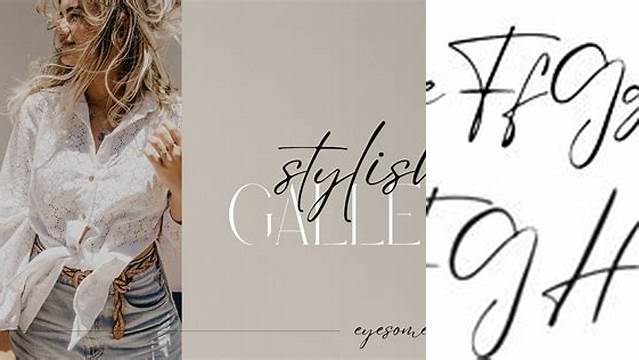
Hey guys! Are you on the hunt for the perfect font to add a touch of elegance and personality to your designs? Look no further! In this article, we're diving deep into the world of Eyesome Script Normal Font, exploring everything from what makes it so special to where you can snag it for free. Get ready to elevate your projects with this stunning typeface!
1. What is Eyesome Script Normal Font?
Eyesome Script Normal Font is a beautifully crafted typeface that falls under the script font category. Known for its flowing lines, elegant curves, and a touch of handwritten charm, it's a versatile font suitable for various design applications. Unlike some overly stylized script fonts, Eyesome Script Normal Font strikes a perfect balance between readability and aesthetic appeal. This means it's not only visually pleasing but also practical for use in both headings and shorter body text. Its gentle, approachable style makes it a fantastic choice for projects aiming to convey warmth, sophistication, or a personal touch. Think wedding invitations, branding for artisanal products, or even adding a unique flair to your website. The beauty of Eyesome Script lies in its ability to enhance the overall mood of your design, making it feel more inviting and bespoke. Whether you're a seasoned designer or just starting out, this font is a valuable addition to your toolkit. The clean, normal weight ensures it's easy to work with, avoiding the pitfalls of overly thick or thin strokes that can sometimes compromise legibility. In essence, Eyesome Script Normal Font is a harmonious blend of artistry and functionality, making it a go-to option for designers who appreciate both beauty and practicality.
2. Key Features of Eyesome Script
When we talk about Eyesome Script, several key features make it stand out from the crowd. First off, its elegant curves and fluid strokes immediately catch the eye. The font exudes a sense of grace and sophistication, making it perfect for projects that need a touch of class. Another defining feature is its readability. Unlike some script fonts that sacrifice clarity for style, Eyesome Script maintains a high level of legibility, ensuring your message gets across without any strain. The consistent weight and spacing contribute to this, allowing the eyes to easily follow the text. Furthermore, Eyesome Script is incredibly versatile. It works well in a variety of contexts, from formal invitations to casual branding materials. Its balanced design makes it adaptable to different sizes and applications, whether you're using it for a large headline or smaller body text. It also includes a comprehensive set of characters, often including uppercase and lowercase letters, numerals, punctuation, and even some special glyphs or ligatures to add extra flair. This makes it a complete package for designers looking for a reliable and stylish script font. The absence of excessive ornamentation keeps it clean and modern, fitting seamlessly into contemporary designs. In short, Eyesome Script’s blend of elegance, readability, and versatility makes it a top choice for designers seeking a font that is both beautiful and functional.
5. Using Eyesome Script in Graphic Design Projects
Using Eyesome Script in graphic design projects can really elevate your work, adding a touch of sophistication and personality. This font shines in various applications, from branding to invitations. For branding, consider using Eyesome Script for logos, business cards, and website headers. Its elegant curves can convey a sense of luxury and refinement, making your brand stand out. In invitations, Eyesome Script adds a personal and sophisticated touch, perfect for weddings, anniversaries, or special events. Use it for the main headings or accent text to create a memorable impression. When working with Eyesome Script, it's important to consider its readability. While it's beautiful, it's best used sparingly for larger text sizes to ensure clarity. Pair it with a simple, clean sans-serif font for body text to create a balanced and harmonious design. Experiment with different colors and backgrounds to see how Eyesome Script interacts with various elements. A light font color on a dark background can create a striking contrast, while a subtle shade can add a touch of understated elegance. Don't be afraid to play with kerning and letter spacing to fine-tune the appearance of the font. By carefully considering these factors, you can harness the full potential of Eyesome Script and create stunning graphic designs that leave a lasting impression.
6. Pairing Eyesome Script with Other Fonts
One of the keys to using Eyesome Script effectively is knowing how to pair it with other fonts. Because Eyesome Script is a decorative script font, it's best to combine it with simpler, more neutral typefaces to create a balanced and harmonious design. A classic pairing is Eyesome Script with a sans-serif font like Helvetica, Arial, or Open Sans. The clean lines of the sans-serif font provide a nice contrast to the flowing curves of Eyesome Script, preventing the design from becoming too overwhelming. Another great option is to pair Eyesome Script with a simple serif font like Times New Roman or Georgia. The serifs add a touch of formality, while still maintaining readability. When choosing a pairing font, consider the overall tone and purpose of your design. If you're aiming for a modern and minimalist look, opt for a clean sans-serif font. If you want a more traditional and elegant feel, a serif font might be the better choice. Experiment with different font weights and sizes to find the perfect balance. Use Eyesome Script for headings or accent text, and the pairing font for body text. This will create a clear visual hierarchy and ensure that your message is easy to read. Don't be afraid to try out different combinations until you find a pairing that works well together and reflects the overall aesthetic you're trying to achieve. Remember, the goal is to create a design that is both visually appealing and easy to read, so choose your fonts wisely.
7. Eyesome Script for Logo Design
Using Eyesome Script for logo design can give your brand a distinctive and memorable identity. Its elegant and flowing style can convey a sense of sophistication, creativity, or personal touch, depending on how it's used. When incorporating Eyesome Script into a logo, it's important to consider the overall brand message and target audience. If your brand is aiming for a luxurious or high-end feel, Eyesome Script can be a perfect choice. Its graceful curves and refined appearance can evoke a sense of quality and exclusivity. For brands that want to project a more approachable and friendly image, Eyesome Script can add a touch of warmth and personality. Its handwritten style can make the brand feel more authentic and relatable. Keep in mind that readability is crucial in logo design. While Eyesome Script is beautiful, it's best used sparingly and in larger sizes to ensure that the brand name is easily recognizable. Pair it with a simple and clean sans-serif font for any supporting text, such as a tagline or slogan. Experiment with different colors and layouts to see how Eyesome Script interacts with other design elements. A bold color can make the logo stand out, while a more subtle palette can create a sense of elegance. Consider the overall balance and composition of the logo to ensure that Eyesome Script complements the other elements without overpowering them. By carefully considering these factors, you can create a logo that is both visually appealing and effectively communicates your brand's identity.
8. Creating Wedding Invitations with Eyesome Script
Creating wedding invitations with Eyesome Script can add a touch of romance and elegance to your special day. This font is perfect for conveying a sense of sophistication and celebration, making your invitations truly memorable. When using Eyesome Script for wedding invitations, consider incorporating it into the main headings, such as the names of the bride and groom, the date, or the venue. Its graceful curves and flowing lines can create a beautiful focal point, drawing the eye and setting the tone for the event. Pair Eyesome Script with a simple and elegant serif font for the body text, such as the details of the ceremony and reception. This will ensure that the invitation is easy to read while still maintaining a sense of formality. Choose a color palette that complements the overall theme of the wedding. Soft, pastel colors like blush, ivory, and gold can create a romantic and delicate feel, while bolder colors like navy, burgundy, or emerald green can add a touch of sophistication. Consider adding decorative elements, such as floral motifs, ribbons, or wax seals, to enhance the overall design. These details can add a personal touch and make the invitations even more special. Experiment with different layouts and compositions to find the perfect balance between elegance and readability. Ensure that all the necessary information is clearly displayed and easy to find. By carefully considering these elements, you can create wedding invitations that are both beautiful and functional, setting the stage for a memorable celebration.
9. Eyesome Script and Web Design
Incorporating Eyesome Script into web design can add a touch of elegance and personality to your website. However, it's important to use it judiciously to ensure a seamless and user-friendly experience. When using Eyesome Script on your website, consider using it for headings, titles, or short phrases that need to stand out. Its graceful curves and flowing lines can create a visually appealing focal point, drawing the visitor's attention and conveying a sense of sophistication. However, avoid using Eyesome Script for large blocks of body text, as its decorative style can make it difficult to read on screen. Pair it with a clean and readable sans-serif font for the main content of your website. Choose a font that is easy on the eyes and optimized for readability on different devices. Ensure that the font sizes and line heights are appropriate for the screen, and that the text is properly aligned and spaced. Consider the overall color scheme and visual hierarchy of your website. Use colors that complement Eyesome Script and create a harmonious and inviting atmosphere. Make sure that the website is responsive and adapts well to different screen sizes and devices. Test the website on various browsers and devices to ensure that the fonts are displayed correctly and that the overall design is consistent. By carefully considering these factors, you can use Eyesome Script effectively in web design to create a visually appealing and user-friendly website that reflects your brand's identity and values.
10. Eyesome Script vs. Other Script Fonts
When comparing Eyesome Script to other script fonts, several key differences and similarities emerge. Eyesome Script is known for its elegant curves, flowing lines, and a touch of handwritten charm. It strikes a balance between readability and aesthetic appeal, making it suitable for various design applications. Other script fonts, such as Brush Script or Lobster, may have a more casual or stylized appearance. Brush Script has a rough, textured look, while Lobster has a bold and retro feel. Some script fonts, like Snell Roundhand or Zapfino, are more formal and ornate. These fonts are often used for invitations, certificates, or other formal documents. Readability is a key factor to consider when choosing a script font. Eyesome Script maintains a high level of legibility, making it suitable for both headings and shorter body text. Some script fonts, especially those with intricate or highly stylized designs, may be more difficult to read, especially in smaller sizes. Versatility is another important consideration. Eyesome Script is a versatile font that can be used in a variety of contexts, from branding to invitations. Other script fonts may be more limited in their applications. Ultimately, the choice between Eyesome Script and other script fonts depends on the specific design project and the desired aesthetic. Consider the overall tone and message of your design, as well as the readability and versatility of the font. By carefully evaluating these factors, you can choose the script font that best suits your needs and creates the desired impact.
11. The History and Evolution of Script Fonts
The history and evolution of script fonts is a fascinating journey through the world of typography and design. Script fonts, which mimic the appearance of handwriting, have a rich and diverse history that spans centuries and cultures. Early script fonts were often based on the calligraphy of scribes and penmen, who used quill pens to create elegant and flowing letterforms. These early script fonts were often used for formal documents, such as diplomas, certificates, and invitations. As printing technology evolved, script fonts became more widely available and accessible. Type designers began to experiment with different styles and techniques, creating a wide range of script fonts with varying degrees of formality and ornamentation. In the 20th century, script fonts experienced a resurgence in popularity, thanks to the rise of advertising and graphic design. Script fonts were used to add a touch of elegance and personality to logos, posters, and other promotional materials. Today, script fonts continue to be a popular choice for designers and typographers. They are used in a wide range of applications, from web design to print media, and are available in a variety of styles and formats. The evolution of script fonts reflects the changing tastes and trends of society, as well as the ongoing innovation and creativity of type designers. From the elegant calligraphy of early scribes to the bold and stylized designs of modern fonts, script fonts have played a vital role in shaping the visual landscape of our world.
12. Common Mistakes to Avoid When Using Script Fonts
When using script fonts, it's important to be aware of common mistakes that can detract from the overall design. One of the most common mistakes is overusing script fonts. Script fonts are best used sparingly, as they can be difficult to read in large blocks of text. Use script fonts for headings, titles, or short phrases that need to stand out, and pair them with a clean and readable sans-serif font for the body text. Another common mistake is choosing a script font that is too difficult to read. Some script fonts, especially those with intricate or highly stylized designs, can be challenging to decipher, especially in smaller sizes. Choose a script font that is legible and easy on the eyes. Avoid using script fonts in all caps. Script fonts are designed to be used in lowercase, as the flowing lines and curves of the letters are more visually appealing in this format. Using script fonts in all caps can make the text difficult to read and detract from the overall design. Pay attention to the kerning and letter spacing when using script fonts. Adjust the spacing between letters to ensure that the text is evenly balanced and visually appealing. Avoid using too many different fonts in a single design. Stick to a maximum of two or three fonts to create a cohesive and harmonious look. By avoiding these common mistakes, you can use script fonts effectively and create designs that are both visually appealing and easy to read.
13. The Psychology of Script Fonts in Design
The psychology of script fonts in design is a fascinating topic that explores how these typefaces can influence our perceptions and emotions. Script fonts, which mimic the appearance of handwriting, often evoke feelings of warmth, elegance, and personalization. They can create a sense of intimacy and connection, making the design feel more approachable and human. Different script fonts can convey different emotions and messages. For example, a formal and ornate script font might evoke feelings of sophistication and luxury, while a more casual and playful script font might create a sense of fun and whimsy. The choice of script font can also influence the perceived value of a product or service. A high-end brand might use an elegant script font to convey a sense of quality and exclusivity, while a more affordable brand might use a simpler and more approachable script font to appeal to a wider audience. The context in which a script font is used can also affect its psychological impact. For example, a script font used on a wedding invitation might evoke feelings of romance and celebration, while a script font used on a business card might convey a sense of creativity and personality. By understanding the psychology of script fonts, designers can use these typefaces effectively to create designs that resonate with their target audience and convey the desired message.
14. Future Trends in Script Font Design
The future trends in script font design are likely to be influenced by several factors, including technological advancements, changing design aesthetics, and the evolving needs of users. One trend that is expected to continue is the development of more versatile and functional script fonts. Designers are creating script fonts that are easier to read, more adaptable to different contexts, and more compatible with various devices and platforms. Another trend is the blurring of lines between different font styles. We may see more hybrid fonts that combine elements of script, sans-serif, and serif typefaces, creating unique and innovative designs. The use of variable font technology is also likely to play a significant role in the future of script font design. Variable fonts allow designers to create a single font file that can be customized in various ways, such as adjusting the weight, width, and slant of the letters. This can provide greater flexibility and control over the appearance of the font. The influence of hand lettering and calligraphy is also expected to continue. Designers are drawing inspiration from traditional techniques and incorporating them into their digital designs, creating script fonts that have a more organic and hand-crafted feel. Overall, the future of script font design is likely to be characterized by innovation, experimentation, and a focus on creating fonts that are both beautiful and functional.
15. Eyesome Script and Branding for Small Businesses
Eyesome Script can be a game-changer for small businesses looking to create a memorable brand identity. Its elegant and personal touch can set your brand apart, especially in a crowded market. For small businesses, branding is all about creating a connection with customers. Eyesome Script can help you achieve this by adding a human element to your brand. Think about using it in your logo, website headers, or even on your packaging. The key is consistency. Once you've chosen Eyesome Script as part of your brand identity, make sure to use it consistently across all your marketing materials. This will help reinforce your brand image and make it more recognizable. Consider the overall tone of your brand when using Eyesome Script. If you're a luxury brand, its elegant curves can convey a sense of sophistication. If you're a more approachable brand, its handwritten style can make you feel more relatable. Don't be afraid to experiment with different colors and layouts to see how Eyesome Script interacts with your other branding elements. A well-designed brand identity can make a big difference for small businesses. Eyesome Script can help you create a brand that is both visually appealing and emotionally resonant.
16. Creating Social Media Graphics with Eyesome Script
Creating engaging social media graphics with Eyesome Script can significantly boost your online presence. Its elegant and eye-catching style can help your content stand out in a sea of posts. Social media is all about grabbing attention. Eyesome Script can help you do just that by adding a touch of sophistication to your graphics. Use it for headlines, captions, or even to create stylized quotes. When using Eyesome Script on social media, keep readability in mind. While it's beautiful, it's best used sparingly and in larger sizes to ensure that your message is clear. Pair it with a clean and readable sans-serif font for any supporting text. Consider the platform you're using and tailor your graphics accordingly. Instagram is all about visuals, so make sure your Eyesome Script graphics are visually appealing and on-brand. Twitter is more text-based, so use Eyesome Script to create concise and impactful messages. Use colors that complement Eyesome Script and create a cohesive look. Consider using brand colors or colors that are relevant to the content you're sharing. Don't be afraid to experiment with different layouts and designs to see what resonates with your audience. Social media is a dynamic space, so keep your graphics fresh and engaging. Eyesome Script can help you create social media graphics that are both beautiful and effective.
17. Eyesome Script and Print Marketing Materials
Using Eyesome Script in print marketing materials can add a touch of elegance and sophistication to your brand. From brochures to business cards, this font can help you create a lasting impression. Print marketing is all about making a tangible connection with your audience. Eyesome Script can help you do this by adding a personal and refined touch to your materials. Consider using it for headlines, subheadings, or even your logo on business cards and brochures. When using Eyesome Script in print, pay attention to the details. Make sure the font is crisp and clear, and that the colors are accurate. Consider the paper stock you're using and how it will affect the overall look and feel of your materials. Pair Eyesome Script with a clean and readable sans-serif font for the body text. This will ensure that your message is easy to read while still maintaining a sense of elegance. Think about the overall design and layout of your print materials. Make sure that the font complements the other elements and that the design is visually appealing. Print marketing can be a powerful tool for reaching your target audience. Eyesome Script can help you create print materials that are both beautiful and effective.
18. Designing eBooks and Digital Publications with Eyesome Script
Incorporating Eyesome Script into eBooks and digital publications can add a touch of sophistication to your content. However, it’s crucial to use it strategically to ensure readability and enhance the overall user experience. In the realm of digital publishing, aesthetics matter. Eyesome Script can lend an air of elegance to titles, chapter headings, or even decorative elements within your eBook. However, remember that readability is paramount. Avoid using Eyesome Script for large blocks of body text, as its decorative nature can strain the reader’s eyes. Pair it with a clean, legible sans-serif or serif font for the main content. Consider the device on which your eBook will be read. Test how Eyesome Script renders on various screens and adjust the font size and spacing accordingly. Optimize the font for digital displays to ensure clarity and prevent pixelation. Use CSS to control the appearance of Eyesome Script in your eBook. Adjust the line height, letter spacing, and margins to create a visually appealing and comfortable reading experience. Remember to embed the font file within your eBook to ensure that it displays correctly on all devices, even if the reader doesn’t have Eyesome Script installed. By carefully considering these factors, you can create eBooks and digital publications that are both beautiful and user-friendly.
19. Eyesome Script and Email Marketing Campaigns
Leveraging Eyesome Script in email marketing campaigns can add a touch of personality and sophistication to your messages. However, it’s essential to use it judiciously to ensure that your emails are both visually appealing and highly effective. Email marketing is all about capturing attention and driving engagement. Eyesome Script can help you achieve this by adding a unique and stylish flair to your email designs. Use it for headlines, subject lines, or call-to-action buttons to make them stand out. However, be mindful of email client compatibility. Some email clients may not render custom fonts correctly, so it’s crucial to use fallback fonts that are widely supported. Ensure that your emails are responsive and display correctly on all devices, including desktops, tablets, and smartphones. Test your emails thoroughly before sending them to your entire list. Optimize your emails for readability. Avoid using Eyesome Script for large blocks of text, as it can be difficult to read on smaller screens. Pair it with a clean and legible font for the main content. Use clear and concise language to convey your message effectively. Personalize your emails by using the recipient’s name and tailoring the content to their interests. By carefully considering these factors, you can create email marketing campaigns that are both visually appealing and highly effective.
20. Creating Certificates and Awards with Eyesome Script
Designing certificates and awards with Eyesome Script can add a touch of elegance and prestige to these important documents. Its flowing lines and sophisticated appearance can convey a sense of accomplishment and distinction. Certificates and awards are meant to be special and memorable. Eyesome Script can help you achieve this by adding a touch of class to your designs. Use it for the recipient’s name, the title of the award, and any other key information that you want to emphasize. Pair Eyesome Script with a classic and formal serif font for the body text. This will create a balanced and harmonious look that is both elegant and easy to read. Consider the overall design and layout of the certificate or award. Use borders, embellishments, and other decorative elements to enhance the visual appeal. Choose a color palette that is appropriate for the occasion and the recipient. Ensure that the certificate or award is printed on high-quality paper or cardstock to give it a professional and polished look. Consider adding a seal or embossed logo to further enhance the prestige of the document. By carefully considering these factors, you can create certificates and awards that are both beautiful and meaningful.
21. Eyesome Script and Event Signage
Utilizing Eyesome Script in event signage can add a touch of sophistication and personality to your gatherings, making them more memorable and visually appealing. Think about using it for welcome signs, directional signage, or even to highlight special event features. For event signage, legibility is key. While Eyesome Script brings elegance, ensure it’s large enough and easily readable from a distance. Pair it with a simpler, sans-serif font for any essential information to guarantee clarity. Consider the overall theme and style of your event when incorporating Eyesome Script. Its flowing lines can enhance the ambiance, but it's essential that it aligns with the event's tone, whether it's a wedding, corporate event, or casual gathering. Use contrasting colors to make the signage pop. A dark Eyesome Script against a light background, or vice versa, can improve visibility and draw attention to the signs. Think about the placement of your signage. Ensure it's strategically positioned in high-traffic areas where attendees can easily spot and read it. By carefully balancing style and functionality, Eyesome Script can elevate your event signage, creating a cohesive and inviting atmosphere.
22. Designing Business Cards with Eyesome Script
Designing business cards with Eyesome Script can give a memorable and sophisticated touch to your professional identity. This elegant font can make your card stand out, conveying a sense of style and attention to detail. For business cards, clarity is paramount. Use Eyesome Script for your name or company name, but keep the rest of the information, such as contact details and job title, in a simple, readable font. A clean sans-serif font often works best. Think about the overall design and layout. A minimalist approach with Eyesome Script can be very effective, emphasizing elegance and sophistication. Avoid cluttering the card with too much information. Consider the color scheme and paper stock. A high-quality paper with a subtle texture can complement the elegance of Eyesome Script. Choose colors that align with your brand and make the text easy to read. Make sure your business card is consistent with your other branding materials. The fonts, colors, and overall design should reflect your brand's identity and create a cohesive impression. By carefully balancing style and functionality, Eyesome Script can transform your business card into a powerful networking tool.
23. Eyesome Script and Menu Design for Restaurants
Using Eyesome Script in menu design for restaurants can add a touch of elegance and sophistication, enhancing the dining experience. This stylish font can make your menu more visually appealing and inviting. For restaurant menus, readability is crucial. Use Eyesome Script sparingly, perhaps for the name of the restaurant or to highlight special dishes. The main body of the menu should be in a clear, easy-to-read font. Think about the overall design and layout of the menu. A well-organized menu with clear sections and descriptions can make it easier for customers to choose their meals. Consider the atmosphere and style of your restaurant. Eyesome Script can convey a sense of luxury and refinement, making it ideal for upscale establishments. Choose colors and graphics that complement the font and the overall theme of your restaurant. Ensure that the menu is easy to handle and durable. Consider using laminated or coated paper to protect it from spills and stains. By carefully balancing style and functionality, Eyesome Script can transform your menu into a valuable marketing tool.
24. Creating Quote Graphics with Eyesome Script
Creating visually appealing quote graphics with Eyesome Script can significantly enhance your social media presence and engagement. This elegant font adds a touch of sophistication, making your quotes stand out and resonate with your audience. For quote graphics, visual impact is key. Use Eyesome Script to highlight the quote itself, allowing its flowing lines and stylish curves to draw attention. Ensure the quote is concise and impactful. Pair Eyesome Script with a clean and complementary background. A simple color gradient or a subtle pattern can enhance the quote without distracting from it. Consider adding a background image that aligns with the theme of the quote. A relevant image can add depth and context to the message. Use a consistent color scheme to maintain brand recognition. The colors you use should align with your overall branding and create a cohesive look. Optimize your graphics for different social media platforms. Each platform has its own dimensions and requirements, so ensure your graphics are properly sized and formatted. By carefully combining aesthetics and readability, Eyesome Script can transform your quote graphics into shareable and engaging content.
25. Eyesome Script and Personalized Gifts
Incorporating Eyesome Script into personalized gifts adds a touch of elegance and sentimentality, making them more special and cherished. This beautiful font can transform ordinary items into treasured keepsakes. For personalized gifts, sentimentality is key. Use Eyesome Script to add names, dates, or heartfelt messages to gifts like mugs, photo frames, or jewelry. Think about the recipient's style and preferences. Choose a font size and color that complements the item and reflects their personality. Consider the occasion for the gift. Eyesome Script can be used for various occasions, from birthdays and anniversaries to weddings and graduations. Ensure the message is clear and meaningful. The font should enhance the message, not detract from it. Use high-quality materials to ensure the gift is durable and long-lasting. A personalized gift is meant to be treasured for years to come. By carefully combining aesthetics and sentiment, Eyesome Script can transform personalized gifts into unforgettable expressions of love and appreciation.
26. Designing Greeting Cards with Eyesome Script
Designing greeting cards with Eyesome Script can add a touch of elegance and warmth, making your messages more personal and memorable. This stylish font is perfect for conveying heartfelt sentiments on any occasion. For greeting cards, sentiment is key. Use Eyesome Script to express your feelings in a beautiful and elegant way. Whether it's a birthday wish, a thank you note, or a message of sympathy, this font can help you convey your emotions. Think about the overall design and layout of the card. A well-designed card with a clear message and attractive graphics can make a lasting impression. Consider the occasion for the card. Choose colors, graphics, and messages that are appropriate for the event. Use high-quality paper or cardstock to ensure the card is durable and looks professional. A well-crafted card is a tangible expression of your thoughtfulness. By carefully combining aesthetics and sentiment, Eyesome Script can transform your greeting cards into cherished keepsakes.
27. Eyesome Script and T-Shirt Design
Using Eyesome Script in t-shirt design can add a touch of style and personality, making your apparel stand out. This elegant font is perfect for creating unique and eye-catching designs. For t-shirt design, visual appeal is key. Use Eyesome Script to create a design that is both attractive and meaningful. Consider the target audience and the message you want to convey. Think about the placement of the design on the t-shirt. A well-placed design can enhance the overall look and feel of the garment. Choose a font size and color that is appropriate for the design and the fabric. Ensure the design is printed clearly and accurately. A well-printed design can make a big difference in the overall quality of the t-shirt. Consider the care instructions for the t-shirt. The design should be durable and able to withstand repeated washings. By carefully combining aesthetics and functionality, Eyesome Script can transform your t-shirt design into a wearable work of art.
28. Creating Book Covers with Eyesome Script
Designing book covers with Eyesome Script can add a touch of elegance and sophistication, enticing readers to pick up your book. This stylish font is perfect for genres like romance, historical fiction, or anything needing a refined touch. For book covers, first impressions matter. Use Eyesome Script for the title or author's name, allowing its flowing lines to catch the eye. Ensure the title is legible and stands out against the background. Think about the genre and target audience. The font should align with the book's tone, whether it's a historical romance or a contemporary drama. Consider the color scheme and imagery. The colors and images should complement the font and convey the essence of the story. Make sure the design is cohesive and professional. A well-designed book cover can significantly impact sales and attract readers. By carefully combining aesthetics and marketing, Eyesome Script can transform your book cover into a powerful selling tool.
29. Eyesome Script and Interior Design Projects
Incorporating Eyesome Script into interior design projects can add a touch of personalized elegance to your living spaces. This stylish font can be used in various creative ways to enhance the aesthetic appeal of your home. For interior design, subtlety and personalization are key. Consider using Eyesome Script for wall decals, decorative signs, or personalized artwork. Think about the overall theme and style of your home. The font should complement the existing decor and create a cohesive look. Choose a font size and color that is appropriate for the space and the design. Ensure the design is properly installed and securely mounted. A well-executed design can add a touch of sophistication and personality to your home. Consider using Eyesome Script for monograms or quotes that reflect your personal values and interests. By carefully combining aesthetics and personalization, Eyesome Script can transform your interior design projects into unique expressions of your style.
30. Tips and Tricks for Mastering Eyesome Script Typography
Mastering Eyesome Script typography requires a blend of creativity and attention to detail. This elegant font can be a powerful tool in your design arsenal, but it's essential to use it effectively. First, understand the font's characteristics. Eyesome Script is known for its flowing lines and sophisticated curves, but it's not always the most readable font. Use it sparingly, primarily for headlines, titles, or short phrases. Experiment with different font sizes and weights. Finding the right balance can make a big difference in the overall look and feel of your design. Pay attention to kerning and letter spacing. Adjust the spacing between letters to ensure that the text is evenly balanced and visually appealing. Choose colors that complement the font and the overall design. A well-chosen color scheme can enhance the elegance and sophistication of Eyesome Script. Consider the context in which the font will be used. The design should be appropriate for the occasion and the target audience. Practice and experiment with different techniques to develop your skills. The more you work with Eyesome Script, the better you'll become at using it effectively. By following these tips and tricks, you can master Eyesome Script typography and create designs that are both beautiful and impactful.